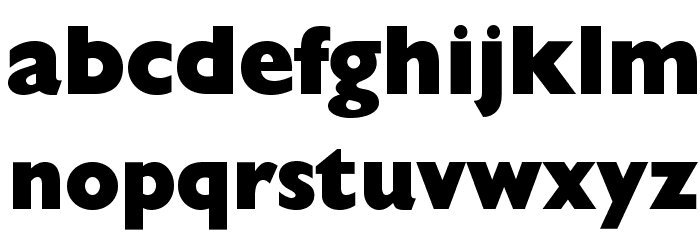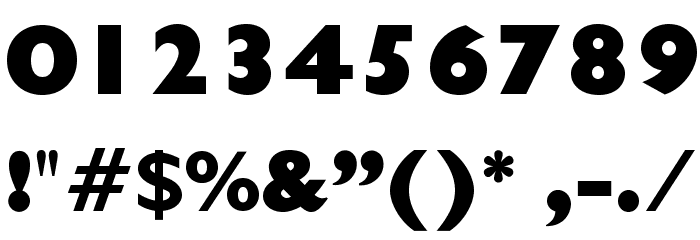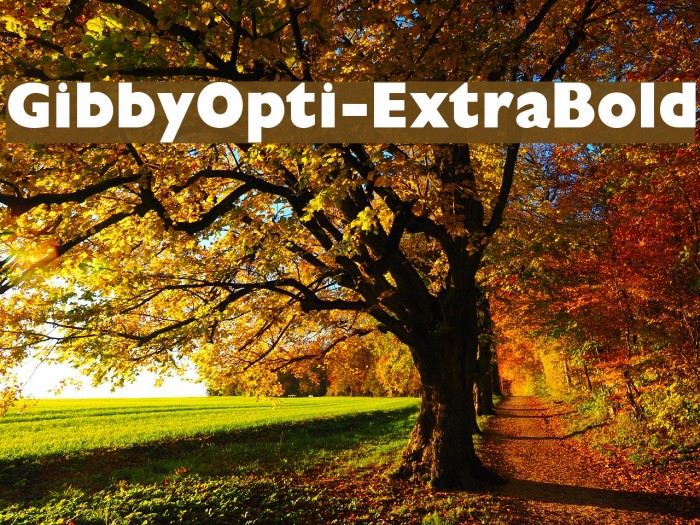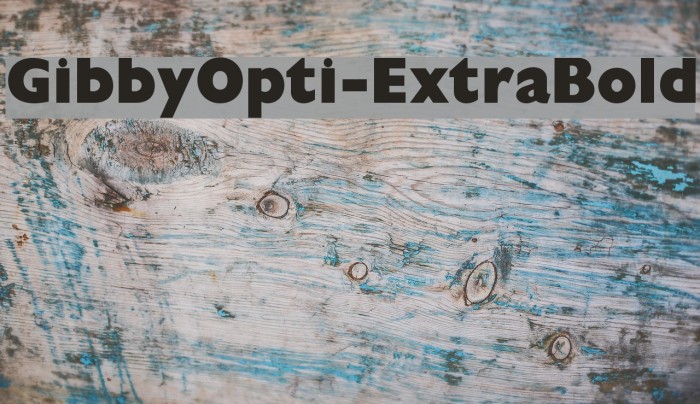
GibbyOpti-ExtraBold Font
This font features a bold and commanding presence with its thick, heavy strokes and strong geometric shapes. The uppercase letters are particularly striking, with a uniform height and width that convey a sense of stability and strength. The lowercase letters maintain the boldness, offering a consistent visual weight across all characters. Numbers are equally robust, ensuring clarity and readability. Special characters are designed with the same boldness, making them stand out effectively. This font is ideal for making a strong visual impact, suitable for headlines and attention-grabbing text.
A bold, geometric font with strong, thick strokes for impactful design.
- Proposed Projects: Ideal for branding, posters, headlines, and any project requiring a strong visual impact.